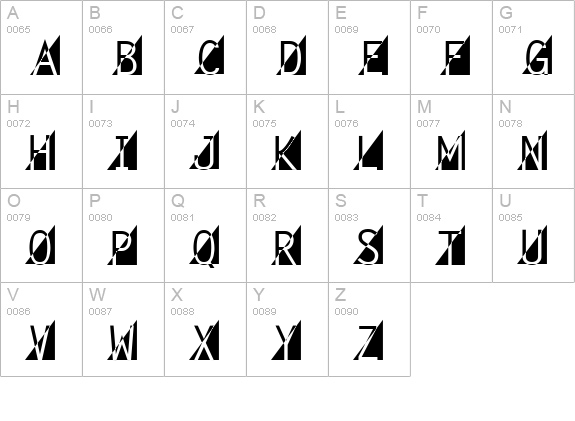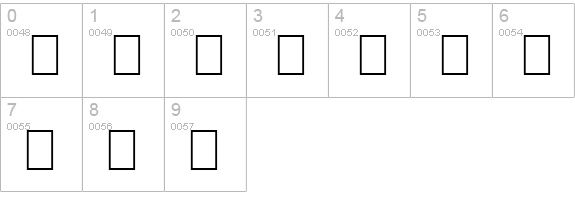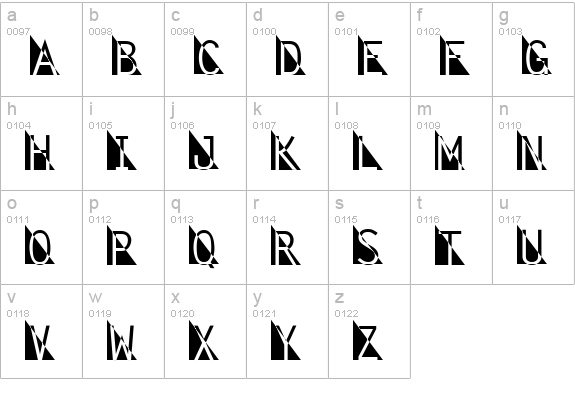
Fantomet 1 Font Details
Fantomet 1 font is a modern and stylish typeface that exudes elegance and sophistication. With its sleek lines and sharp angles, this font is perfect for creating eye-catching designs that demand attention. The versatility of Fantomet 1 makes it suitable for a wide range of projects, from branding to editorial design. What sets Fantomet 1 font apart is not only its striking appearance but also the fact that it is available for free download at FontsMarket.com. This means that you can access this high-quality font without any cost, making it a valuable addition to your design toolkit. Whether you're working on a logo, poster, or website, Fantomet 1 font will elevate your design to the next level. Its clean and modern aesthetic will help you stand out from the crowd and make a lasting impression on your audience. Download Fantomet 1 font today and unleash your creativity with this stunning typeface.